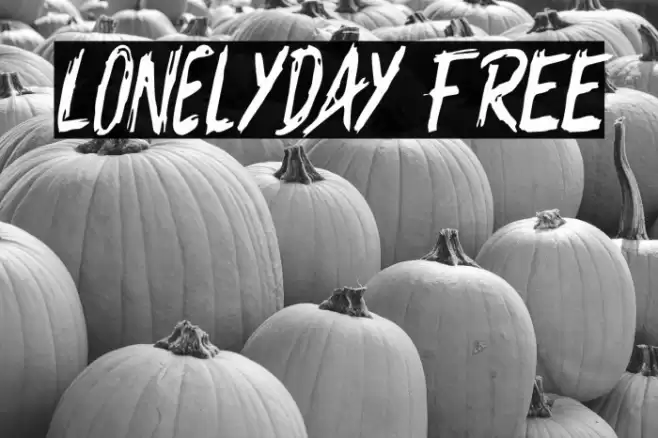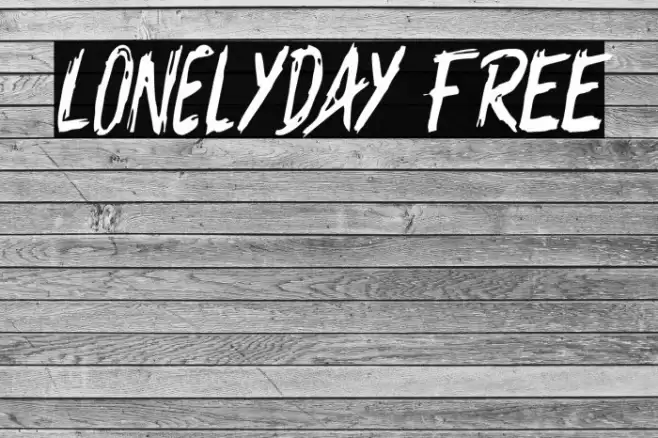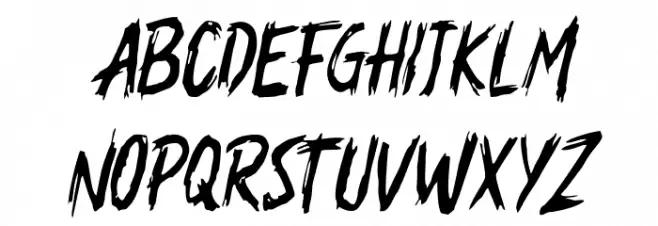
Lonelyday FREE Font
Lonelyday FREE Description
This font features a bold and dynamic brushstroke style, characterized by its jagged edges and energetic appearance. The letters are crafted with a sense of movement, giving them a raw and expressive quality. The uppercase and lowercase characters maintain a consistent style, with each letter exhibiting unique variations that add to the font's overall personality. The numbers and special characters are designed to match the bold and edgy aesthetic, making this font suitable for projects that require a strong visual impact.
A bold, brushstroke font with jagged edges and an energetic style from Regular fonts.
- Proposed Projects: Ideal for music album covers, event posters, or any design needing a bold, expressive touch.
- Overall Style: Modern, Decorative